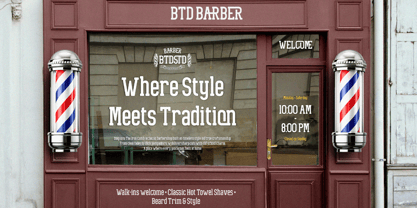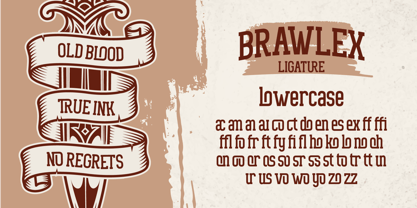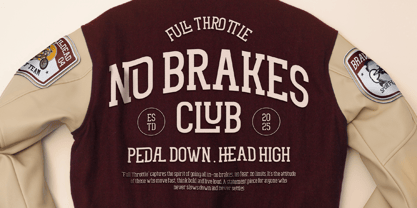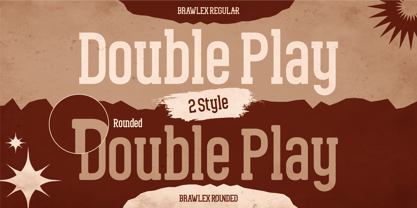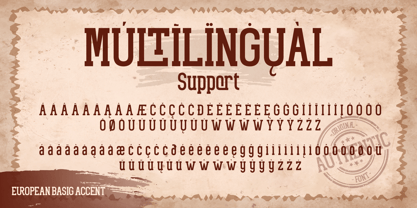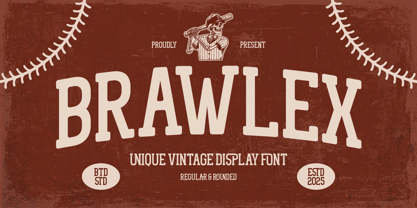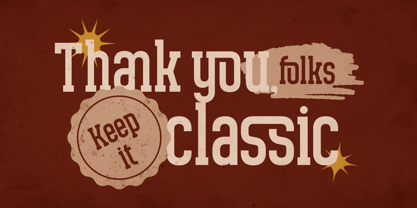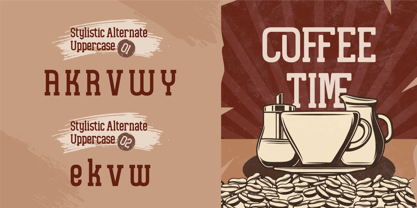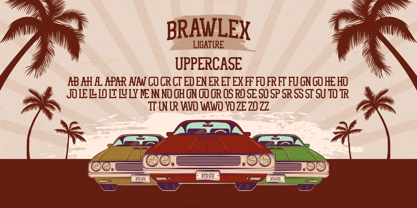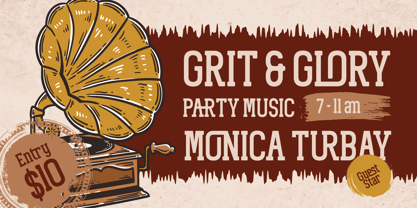
Brawlex
The Brawlex Font Family was designed by Eric Kurniawan and published by Burntilldead. Brawlex contains 2 styles and family package options. More about this family
Introducing Brawlex, a bold display font with two styles. Inspired by varsity aesthetics, vintage poster, western signage and retro sport flair. Brawlex is a bold and confident typeface designed to stand out. Comes with Regular and Rounded style, make it easy to adapt to various design needs - from vintage logos design, retro posters and classic signage, to labels and product packaging. Brawlex also works great for social media graphics, music event flyers, or any design that need strong visual impact and a nostalgia touch.
Features:
• Uppercase & Lowercase
• Number
• Punctuation
• Alternates
• Ligatures
• Multilingual